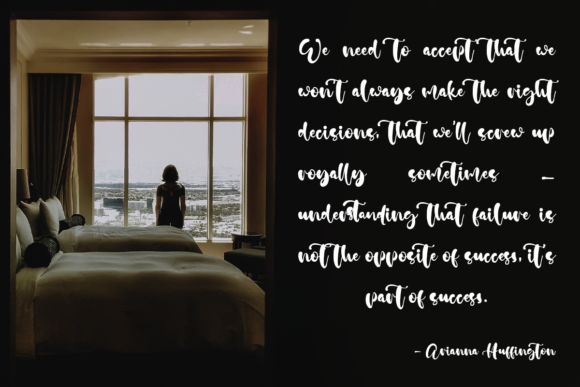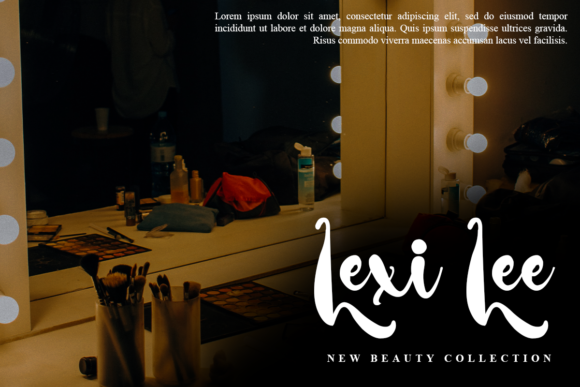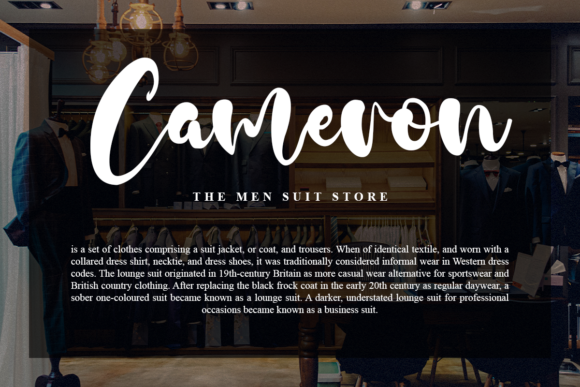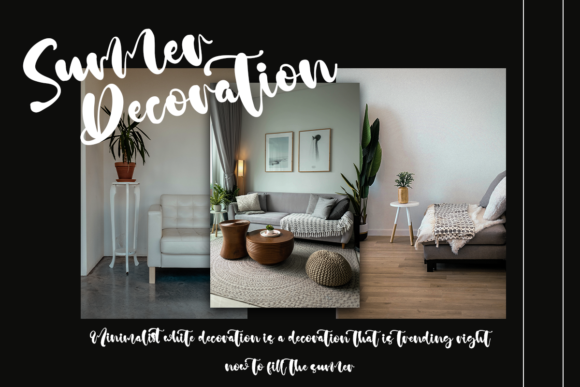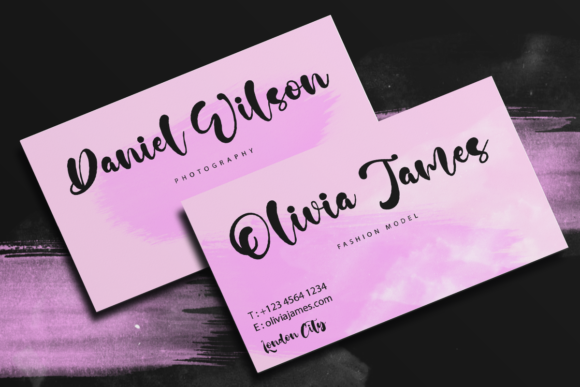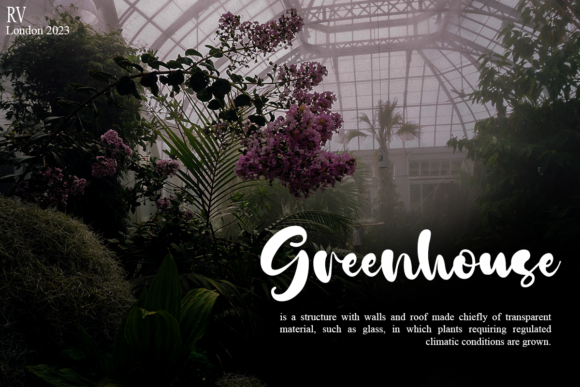
Introducing Claudia Jane Font: The Perfect Addition to Your Design Arsenal
Are you tired of using the same old fonts in your designs? Look no further than Claudia Jane, a modern and chic handwritten font that’s sure to elevate your work to the next level. With its trendy and sophisticated vibe, Claudia Jane is the perfect choice for designers and crafters looking to add a touch of elegance to their projects.
The Characteristics of Claudia Jane Font
Claudia Jane is a beautifully crafted handwritten font that’s characterized by its flowing lines, delicate curves, and refined edges. Its modern and chic aesthetic makes it perfect for a wide range of design applications, from fashion and beauty to lifestyle and entertainment. Whether you’re creating a logo, brochure, or social media graphic, Claudia Jane is sure to make a lasting impression.
Why Choose Claudia Jane Font?
So, what sets Claudia Jane apart from other fonts on the market? Here are just a few reasons why designers and crafters are falling in love with this gorgeous handwritten font:
- Trendy and Modern: Claudia Jane has a distinctly modern feel that’s perfect for designers who want to stay on-trend. Its chic aesthetic is sure to appeal to anyone looking for a font that’s fresh and contemporary.
- Versatile: Claudia Jane is a versatile font that looks lovely on a variety of designs, from elegant and sophisticated to playful and whimsical. Whether you’re creating a formal or informal design, Claudia Jane is sure to fit the bill.
- Easy to Read: Despite its delicate and refined appearance, Claudia Jane is incredibly easy to read. This makes it perfect for body text, headlines, and titles, as well as for use in digital and print materials.
- Unique: With its distinctive curves and flowing lines, Claudia Jane is a truly unique font that’s sure to stand out from the crowd. Use it to add a touch of personality to your designs and make them more memorable.
How to Use Claudia Jane Font in Your Designs
Ready to start using Claudia Jane in your designs? Here are a few tips to get you started:
- Pair it with Bold Fonts: Claudia Jane looks stunning when paired with bold, sans-serif fonts. Try using it in combination with a font like Arial Black or Impact to create a striking contrast.
- Use it for Headlines: Claudia Jane is perfect for headlines and titles, where its elegant and refined appearance can really shine. Try using it to create eye-catching headlines that draw readers in.
- Add a Pop of Color: Claudia Jane looks gorgeous in a variety of colors, from soft pastels to rich jewel tones. Experiment with different colors to find the perfect shade for your design.
Where to Use Claudia Jane Font
So, where can you use Claudia Jane in your designs? The possibilities are endless! Here are a few ideas to get you started:
- Fashion and Beauty: Claudia Jane is perfect for fashion and beauty brands, where its elegant and refined appearance can help to create a sophisticated and high-end look.
- Lifestyle and Entertainment: Claudia Jane is also great for lifestyle and entertainment brands, where its trendy and modern aesthetic can help to create a fun and engaging vibe.
- Wedding and Event Design: Claudia Jane is a beautiful choice for wedding and event design, where its romantic and whimsical appearance can help to create a memorable and special atmosphere.
In conclusion, Claudia Jane is a stunning handwritten font that’s sure to elevate your designs to the next level. With its modern and chic aesthetic, versatile appearance, and easy readability, Claudia Jane is the perfect choice for designers and crafters looking to add a touch of elegance to their projects. So why wait? Download Claudia Jane today and start creating beautiful, eye-catching designs that will amaze your readers!